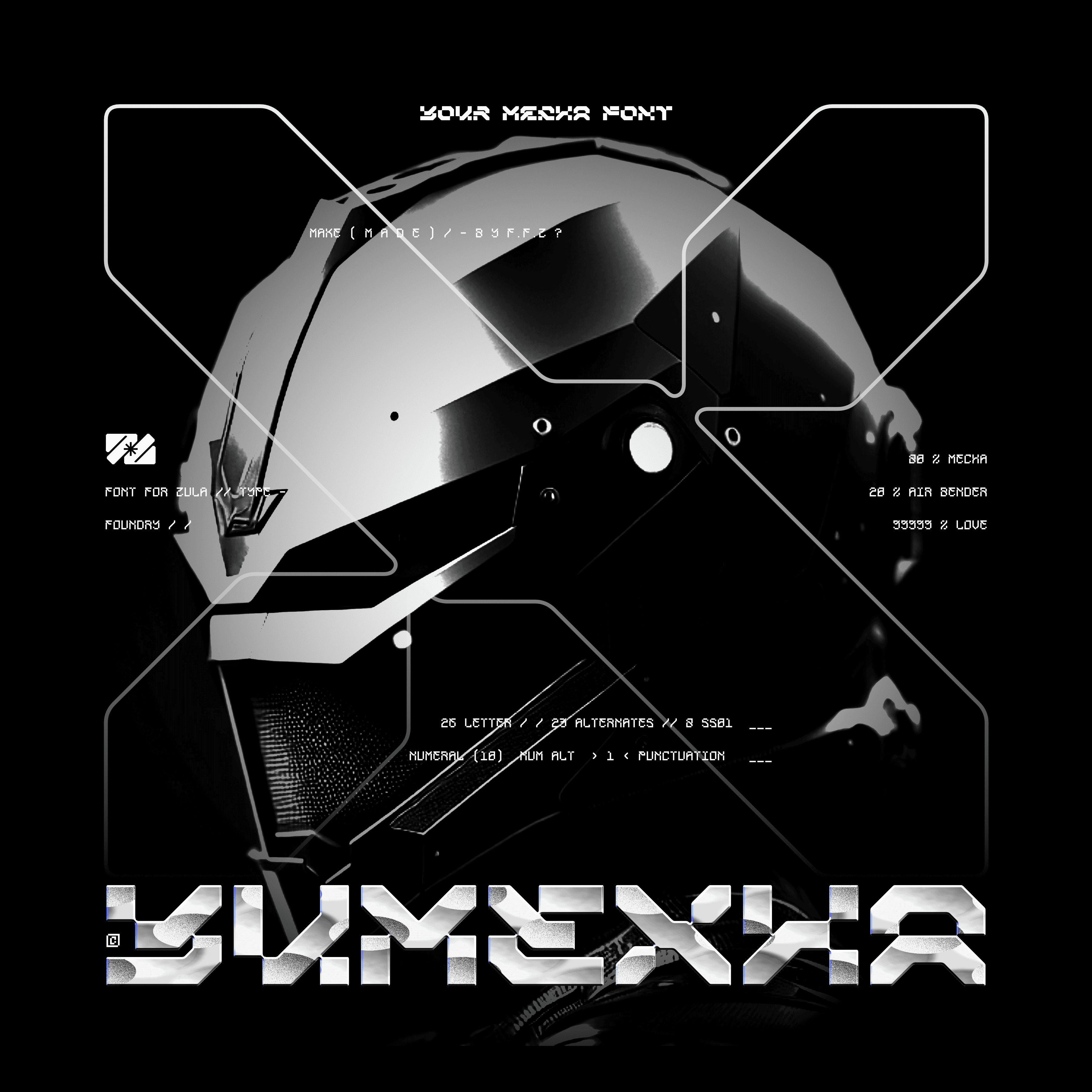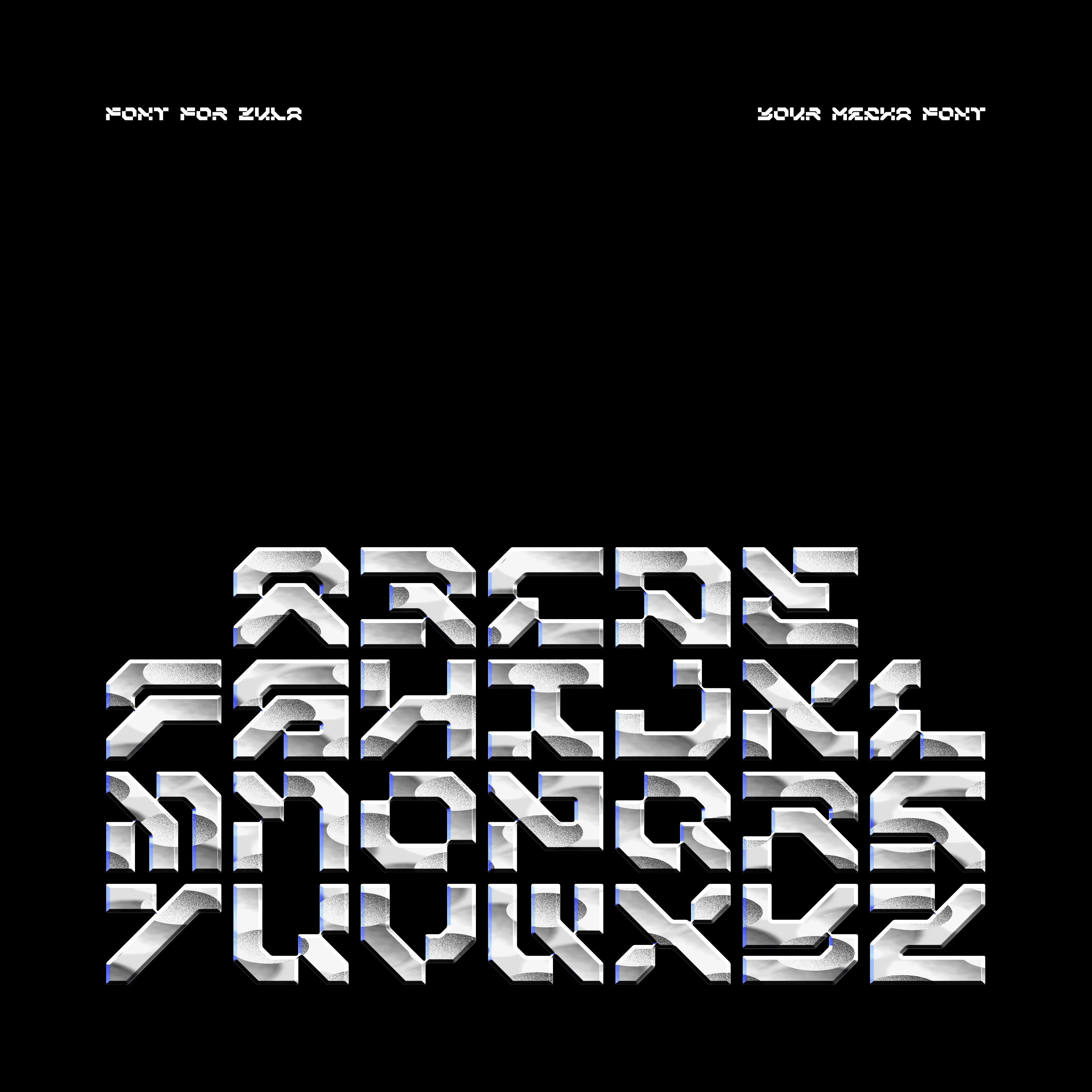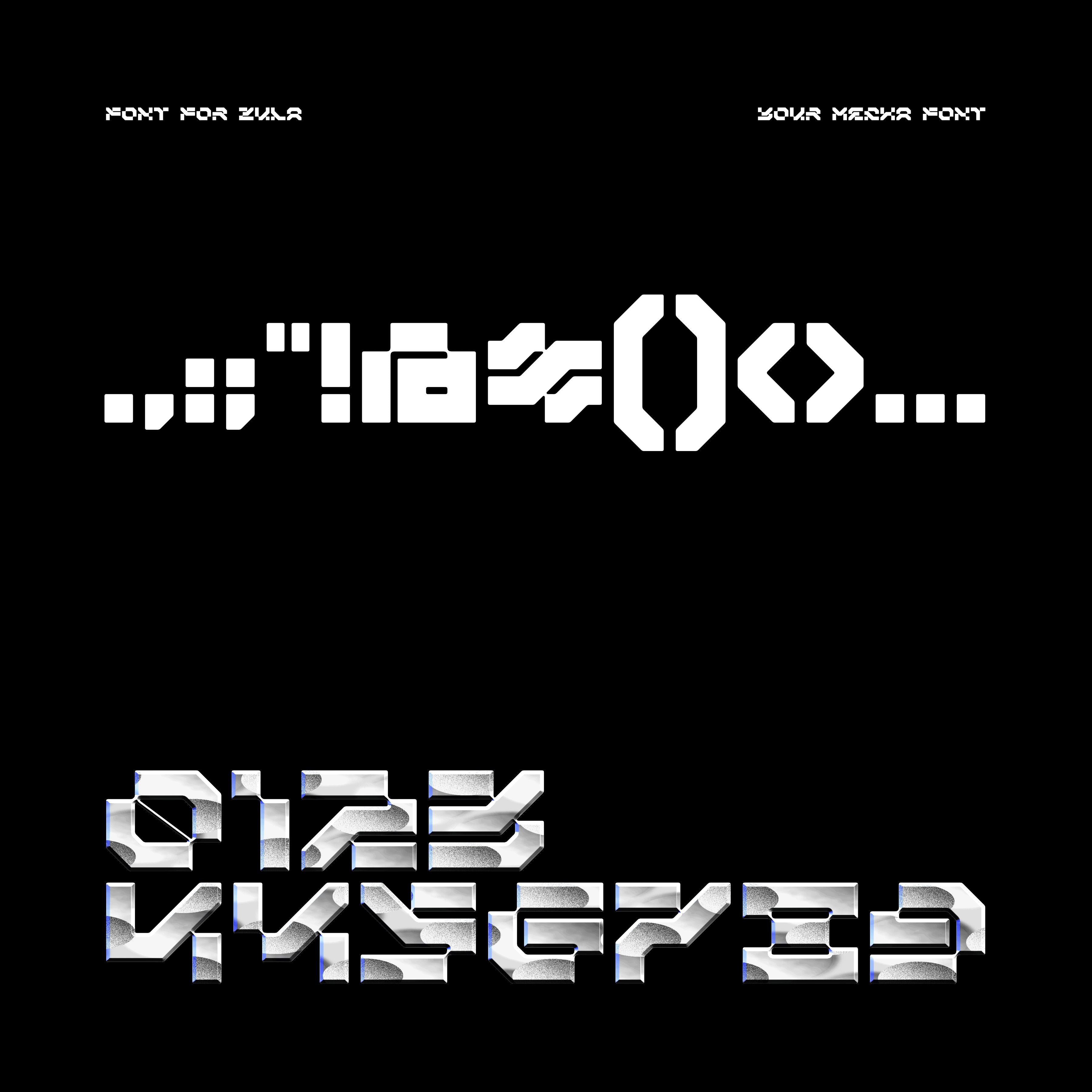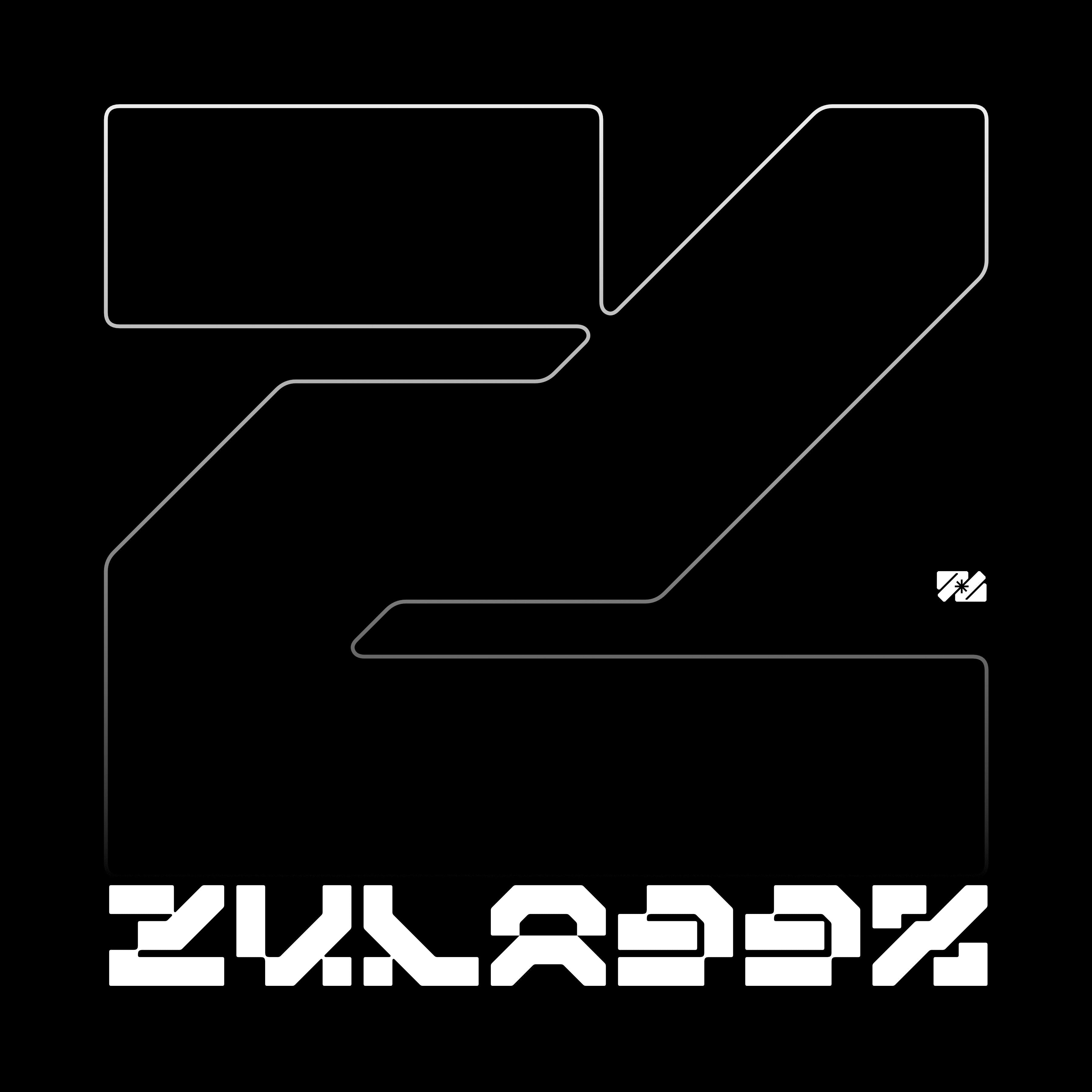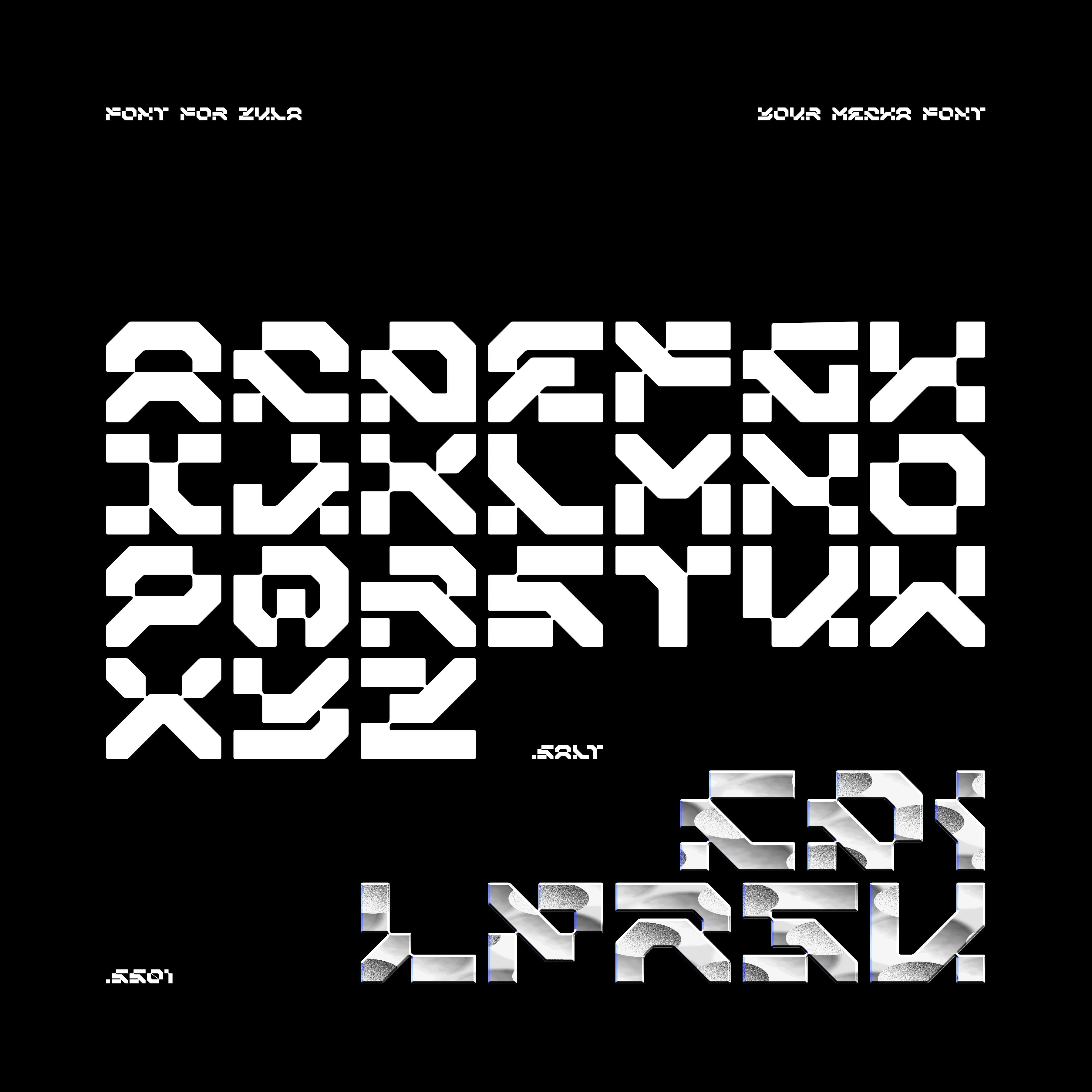
YUMEXHA Typeface
The YUMEXHA Typeface is a unique, futuristic mecha-themed font that includes a variety of options such as alternative letters, stylistic sets, numerals, and punctuation. It comes in OTF/TTF and WOFF formats, featuring 26 letters, 23 alternates, 8 stylistic sets, 10 numerals, and 1 numeral alternate.
Ideal for futuristic and cyberpunk-themed design projects. Perfect for posters, branding, video game graphics, and merchandise, ensuring a striking visual impact with its unique geometric style and versatile letter alternatives.